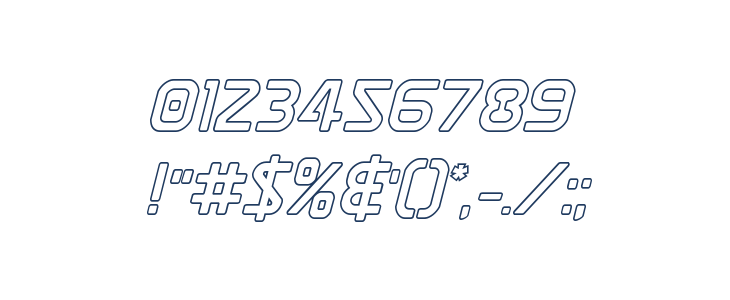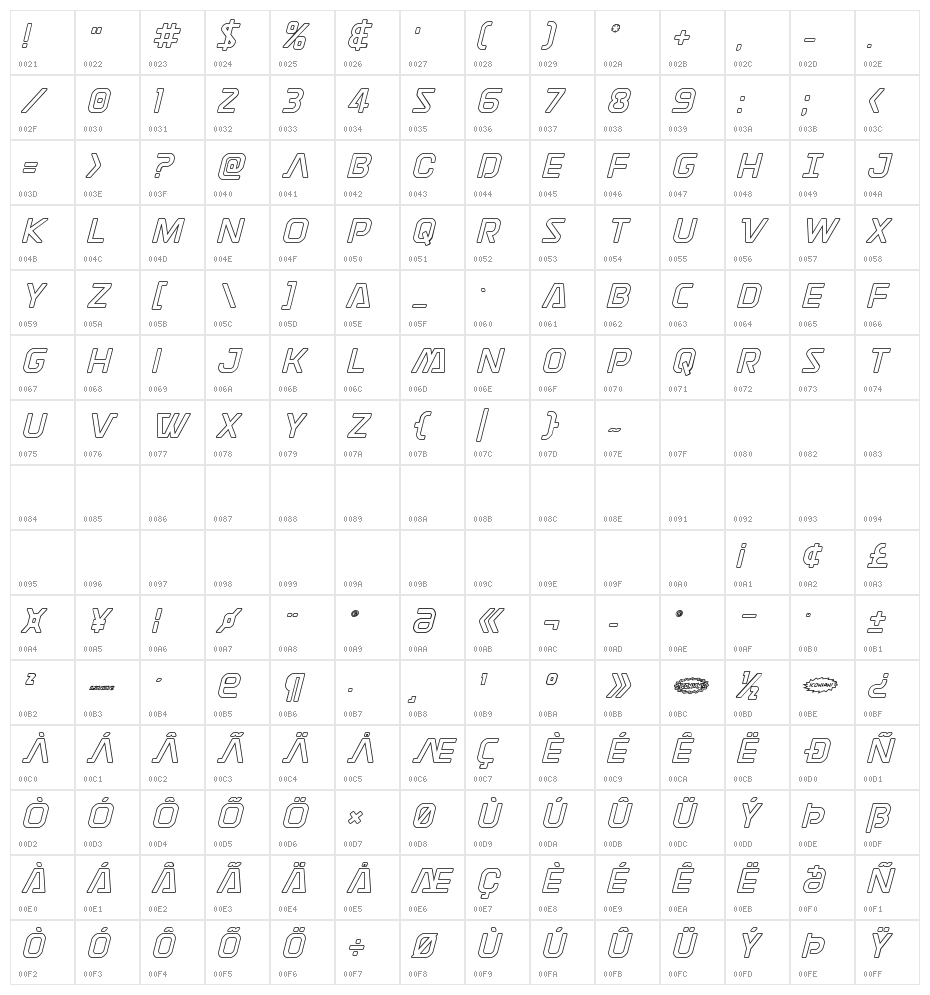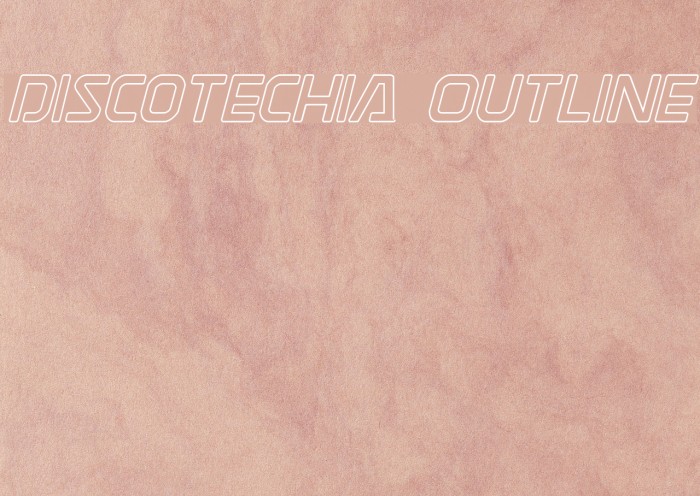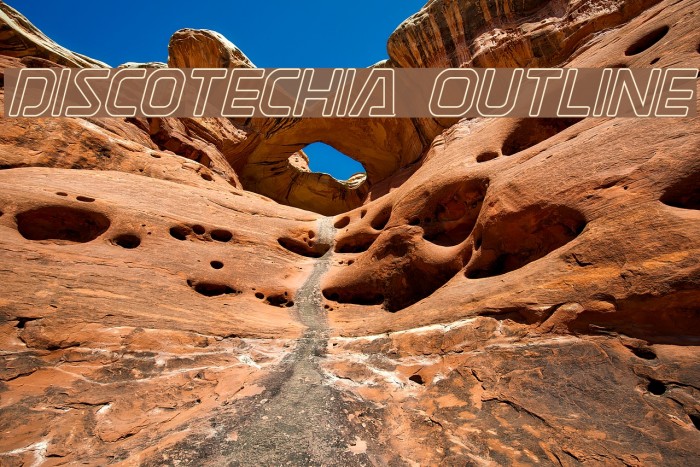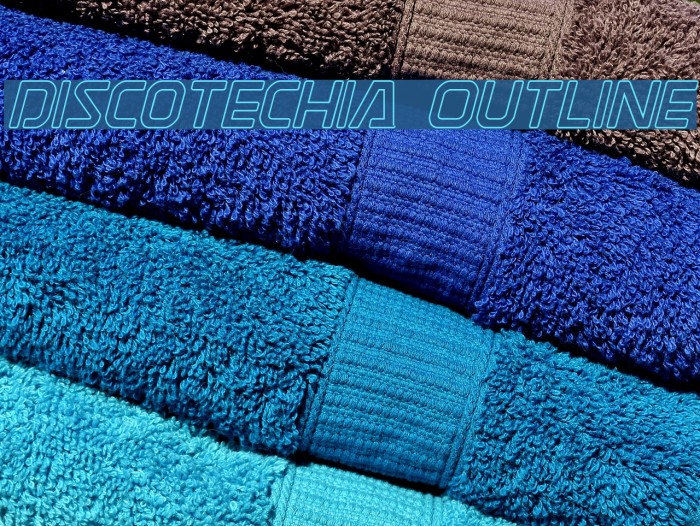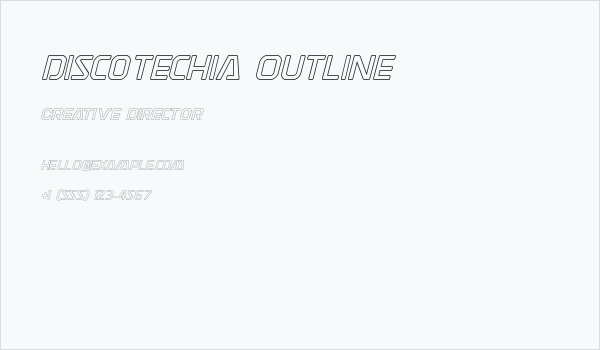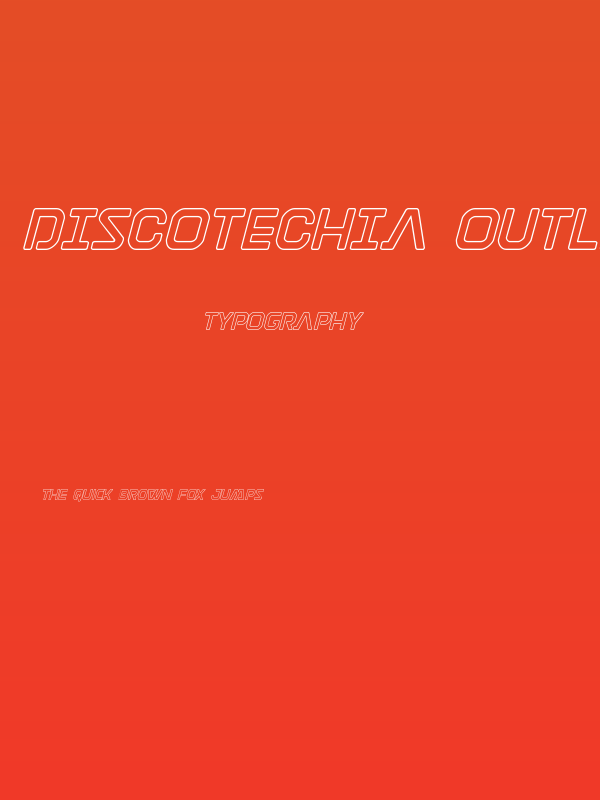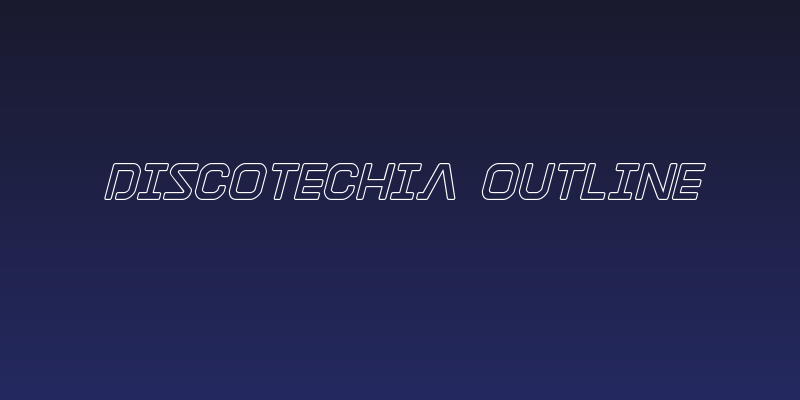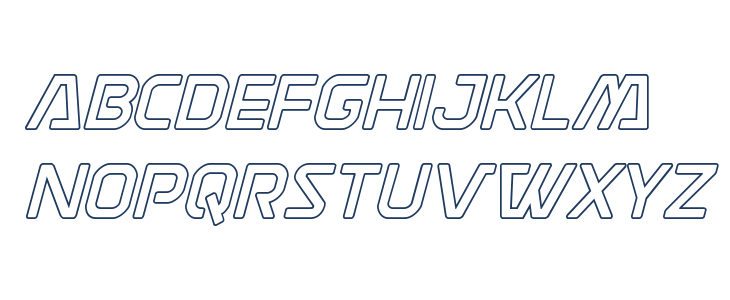
Discotechia Outline Font
Discotechia Outline Description
This font features a bold, geometric outline style that gives it a modern and futuristic appearance. The characters are constructed with clean, straight lines and sharp angles, creating a sense of precision and clarity. The uppercase letters are uniform in height, while the numerals and special characters maintain the same stylistic approach, ensuring consistency across all glyphs. The outline design adds a unique dimension, making the font stand out in any design project. Its distinct style is suitable for creating eye-catching headlines or logos that require a contemporary and dynamic look.